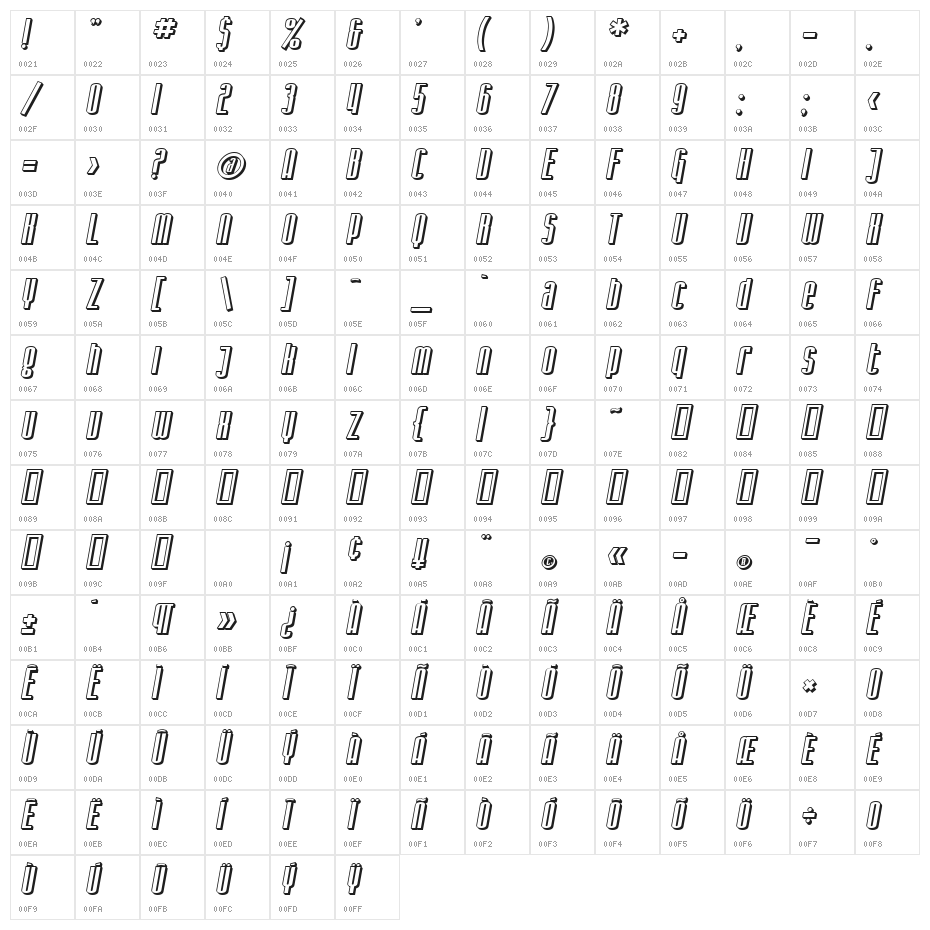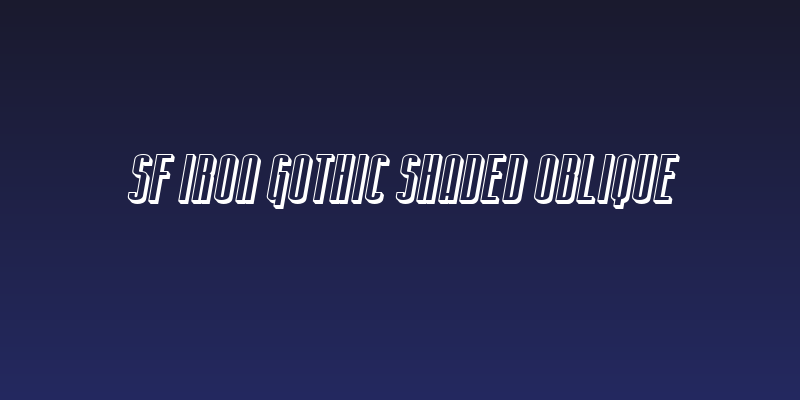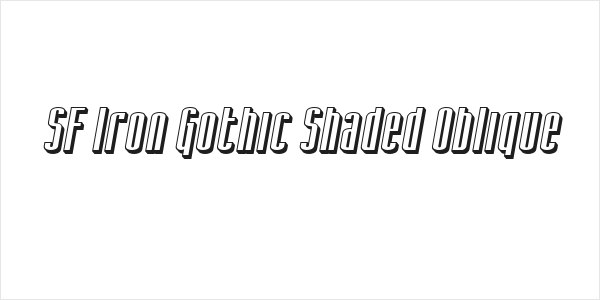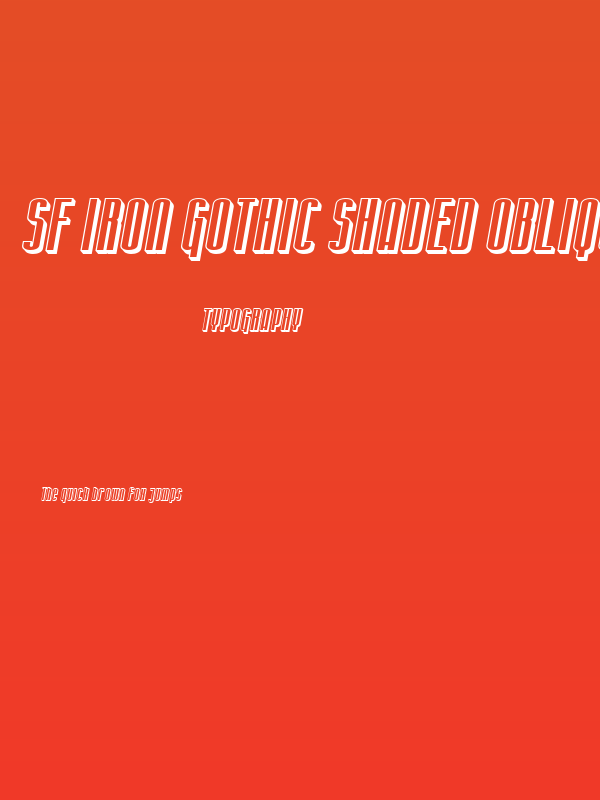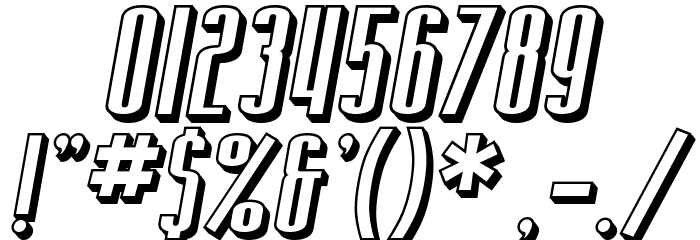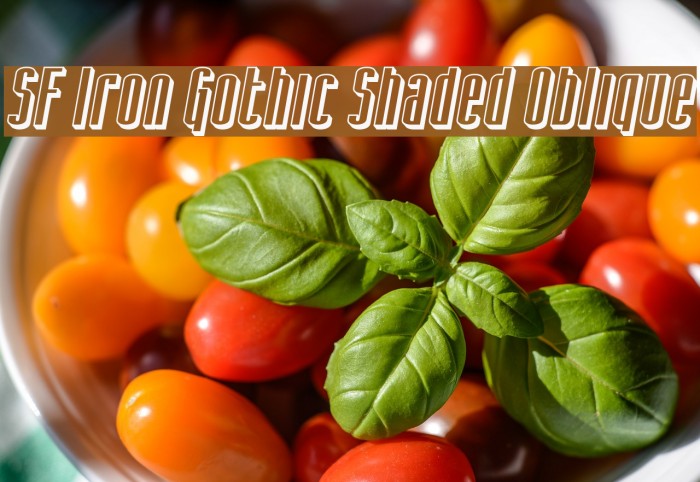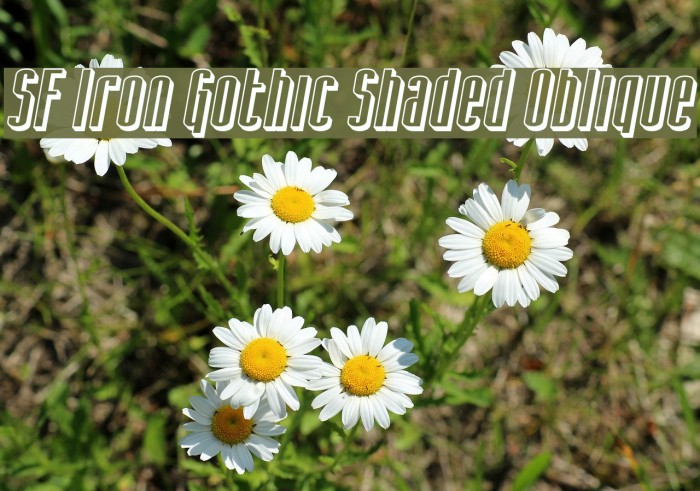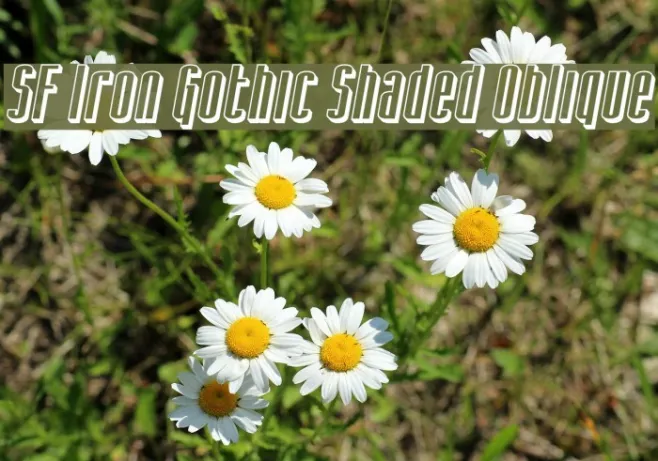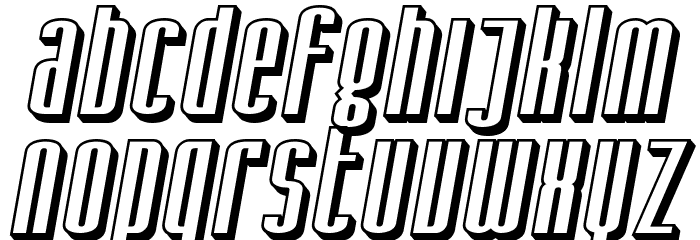
SF Iron Gothic Shaded Oblique Font
SF Iron Gothic Shaded Oblique Description
This font features a bold, dynamic style with a strong oblique slant, giving it a sense of movement and energy. The characters are outlined with a shaded effect, adding depth and a three-dimensional appearance. The uppercase and lowercase letters maintain a consistent height, contributing to a uniform look. The numerals and special characters follow the same design principles, ensuring cohesion across all elements. The font's distinct Gothic influence is evident in its angular shapes and sharp edges, making it suitable for impactful and attention-grabbing designs.
| Overall Style | Modern, Decorative |
| Proposed Projects | Ideal for posters, logos, and branding materials that require a bold and dynamic presence. |